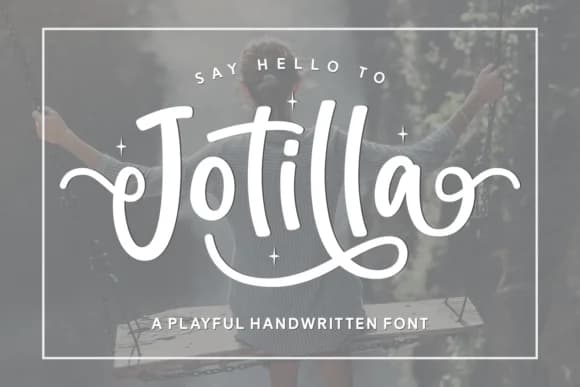
There's something about Jotilla that feels both polished and alive at once. This elegant script from Adyfo maintains strong readability at any size, whether you're running the letters snug or giving them breathing room, and that matters when you're trying to pack real personality into a design without sacrificing legibility.
The swash set is where Jotilla really earns its place in your typeface library. You get ornamental letterforms that feel luxurious without tipping into overwrought territory, which opens up some genuinely useful applications. Wedding invitation suites become richer with Jotilla as the headline voice. Product packaging for boutique skincare, artisan candles, premium chocolate, or handmade soaps all benefit from that sophisticated vibe. Anchor headlines with it, frame numbers, or hand-letter accent phrases that give your design a bespoke, considered feel. Menu cards, restaurant branding, Etsy shop headers, and greeting cards work beautifully too.
Jotilla Font is a script font that shines as a display or heading face. Pair it with a clean sans-serif or serif font for body text β the contrast creates a clear hierarchy while the two styles stay balanced and easy to read.